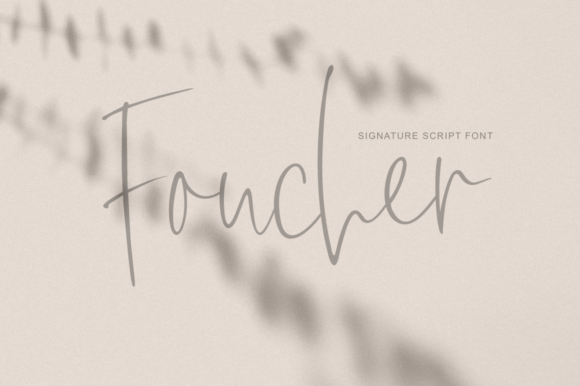
Dive into the world of enchanting typography with Foucher Font, a breathtaking script font family that will transform your creative visions into captivating realities. Crafted by the ingenious Pasha Larin, Foucher beckons you on an artistic journey, inviting you to embrace its graceful lines and captivating curves.
With its slender and agile strokes, Foucher dances across the page, exuding elegance and charm. This font is more than just a collection of letters; it's an expression of artistry, a symphony of harmonious forms that will elevate your designs to new heights.
Envision your words dancing across the screen or adorning your print projects, imbued with the charm and grace of Foucher. Create logos that exude sophistication, branding that radiates personality, and social media posts that capture the imagination.
Foucher's versatility knows no bounds. Its delicate touch adds a touch of whimsy to wedding invitations, while its bold strokes command attention in marketing campaigns. Unleash your creativity and explore the endless possibilities that await you with this extraordinary font.
Step into a realm where words come alive, where your message resonates with eloquence and charm. Let Foucher Font be your muse, inspiring you to create captivating designs that leave a lasting impression. Embrace the magic of Foucher and watch as your creative dreams take flight.